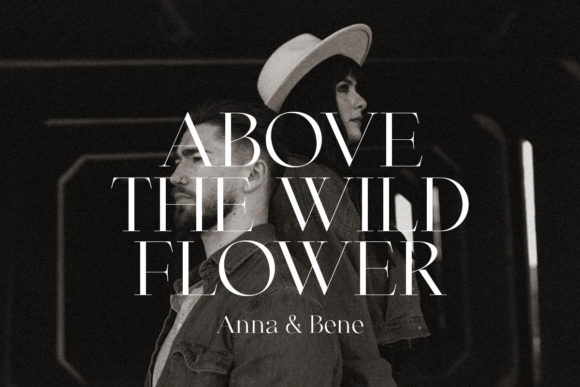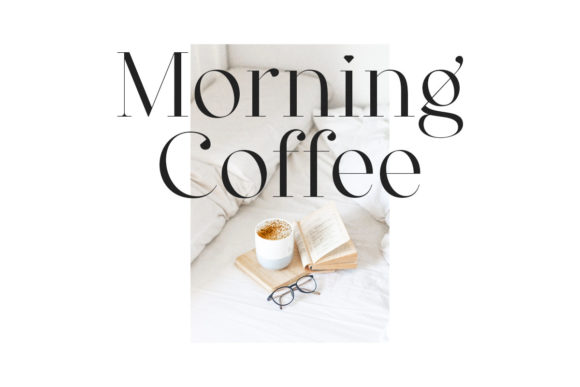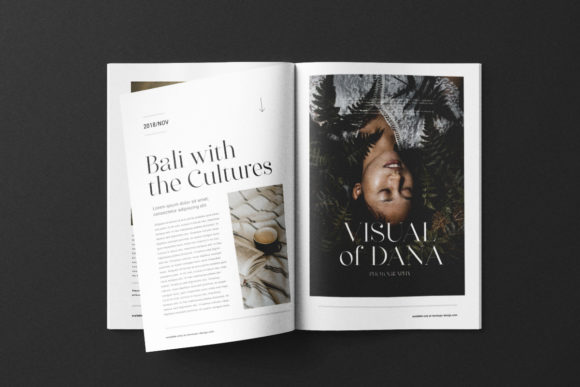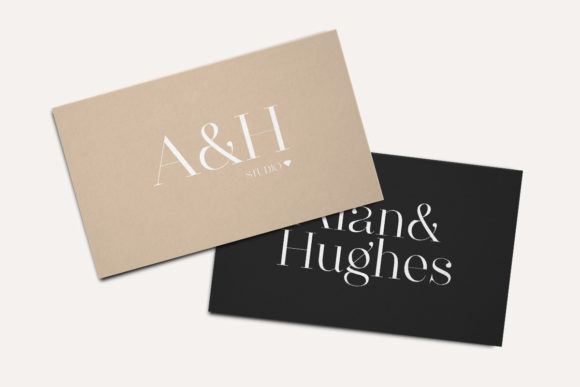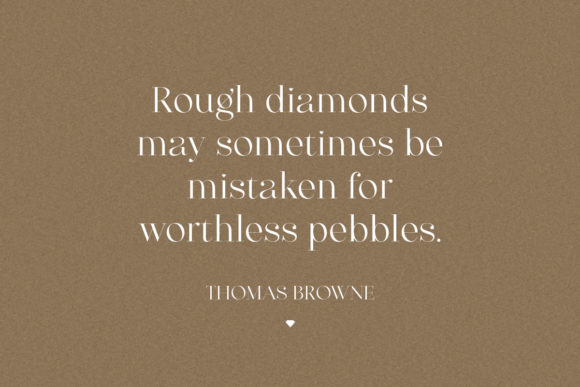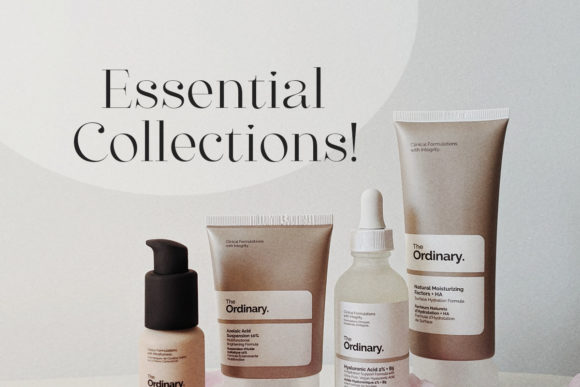
Diamond Bridge Font: Elevate Your Crafting Ideas with Style and Authenticity
In the world of crafting, design, and branding, the right font can make all the difference. A well-chosen font can elevate your project from ordinary to extraordinary, conveying the perfect tone and aesthetic. If you’re on the hunt for a stylish and authentic serif font that can take your crafting ideas to the next level, look no further than Diamond Bridge Font.
What is Diamond Bridge Font?
Diamond Bridge Font is a beautifully designed serif font that exudes elegance and sophistication. Its classic yet modern design makes it an excellent choice for a wide range of projects, from greeting cards and invitations to branding, labels, and more. With its authentic feel and stylish flair, Diamond Bridge Font is sure to add a touch of luxury to any creation.
Key Features of Diamond Bridge Font
- Authentic Serif Design: Diamond Bridge Font boasts a traditional serif design that is both timeless and versatile.
- Stylish and Elegant: The font’s sleek lines and refined curves give it a sophisticated look that’s perfect for high-end projects.
- Wide Range of Uses: From cards and invitations to branding and labels, Diamond Bridge Font can be used in a variety of crafting ideas.
- Easy to Read: The font’s clear and legible design ensures that your message is conveyed with ease.
How to Use Diamond Bridge Font
Diamond Bridge Font can be used in a multitude of ways to elevate your crafting ideas. Here are a few ideas to get you started:
- Cards and Invitations: Add a touch of elegance to your greeting cards and invitations with Diamond Bridge Font.
- Branding and Packaging: Use Diamond Bridge Font to create luxurious branding and packaging that stands out from the crowd.
- Labels and Tags: Add a stylish touch to your labels and tags with Diamond Bridge Font.
- Digital and Print Media: Use Diamond Bridge Font in your digital and print media, such as brochures, flyers, and social media graphics.
Tips for Getting the Most Out of Diamond Bridge Font
To make the most of Diamond Bridge Font, here are a few tips to keep in mind:
- Experiment with Sizes and Colors: Try out different sizes and colors to see how Diamond Bridge Font looks in various contexts.
- Pair with Other Fonts: Combine Diamond Bridge Font with other fonts to create a unique and visually appealing design.
- Use in Combination with Images: Pair Diamond Bridge Font with high-quality images to create stunning visual content.
Diamond Bridge Font is a stylish and authentic serif font that can elevate a wide range of crafting ideas. With its elegant design, versatility, and ease of use, it’s an excellent addition to any designer’s or crafter’s toolkit. Whether you’re working on a card, branding project, or label, Diamond Bridge Font is sure to add a touch of sophistication and style. So why wait? Add Diamond Bridge Font to your favorite creations today and be amazed by the outcome!